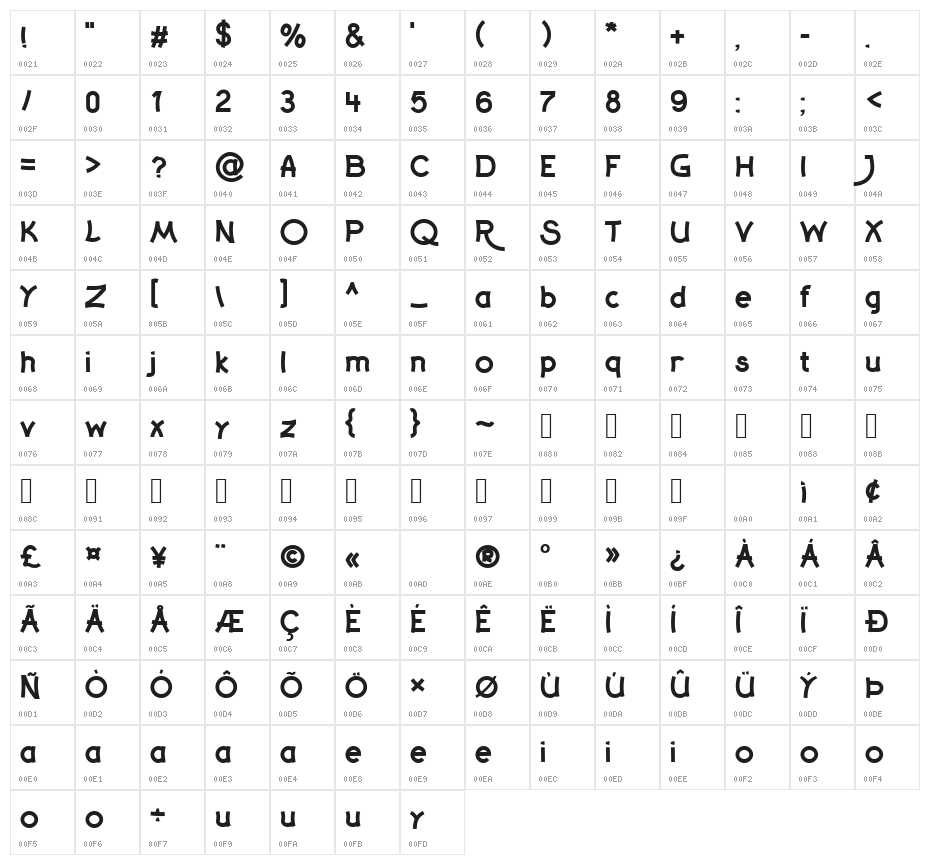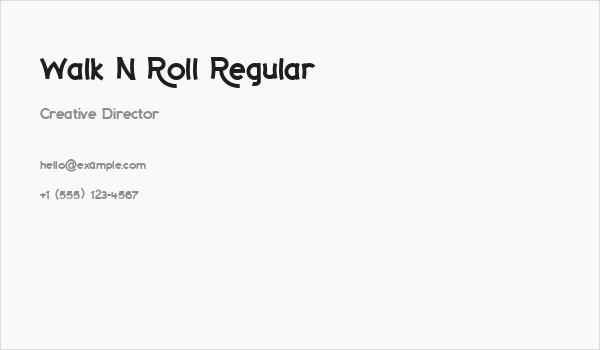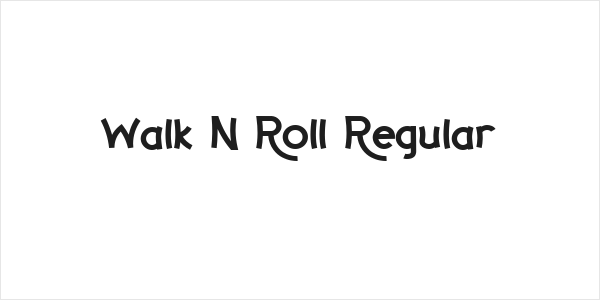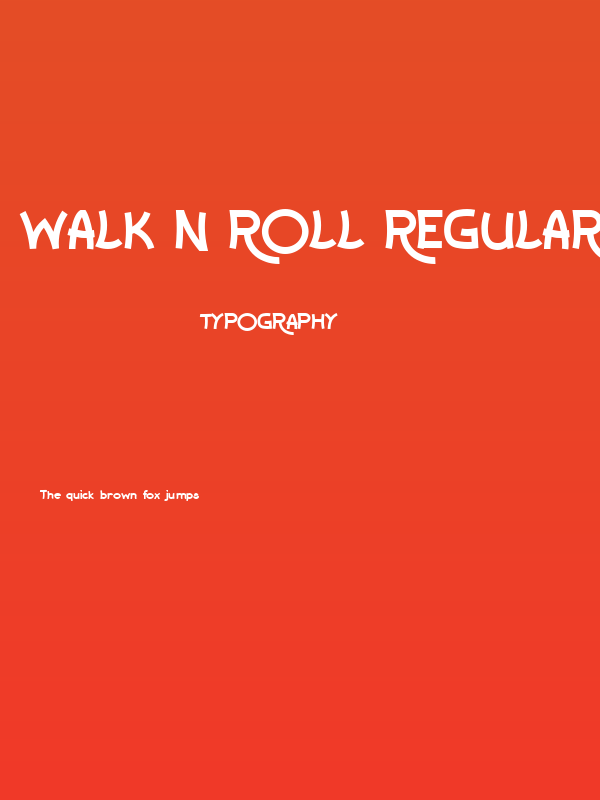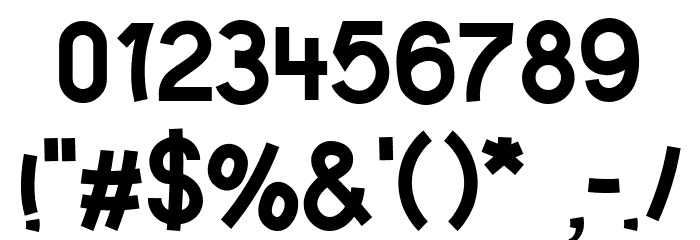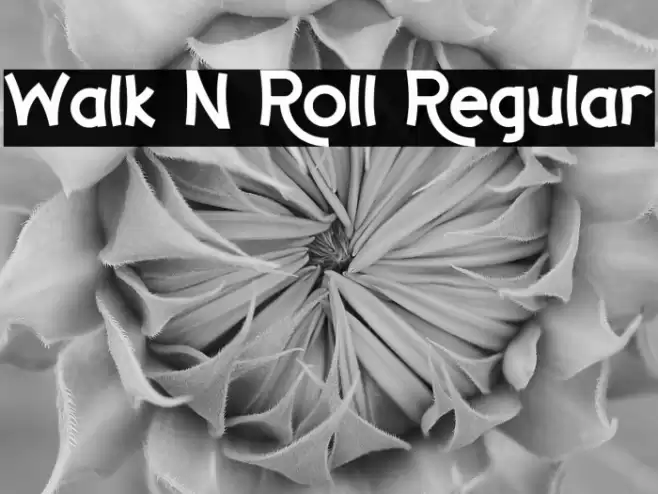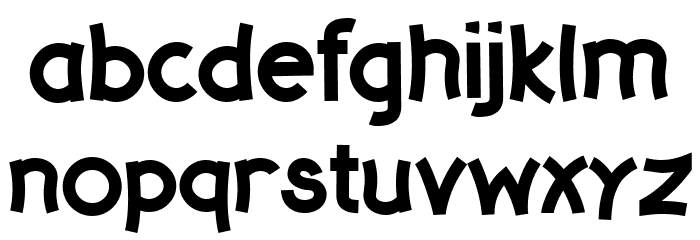
Walk N Roll Regular Font
Walk N Roll Regular Description
This font features a playful and dynamic style, characterized by its wavy and irregular letterforms. The uppercase letters exhibit a unique, slightly distorted appearance, giving them a lively and energetic feel. The lowercase letters maintain this whimsical style, with a consistent flow and rhythm. The numerals and special characters follow the same playful aesthetic, making the font suitable for creative and informal designs. Its bold and eye-catching nature makes it ideal for projects that require a fun and engaging visual impact.